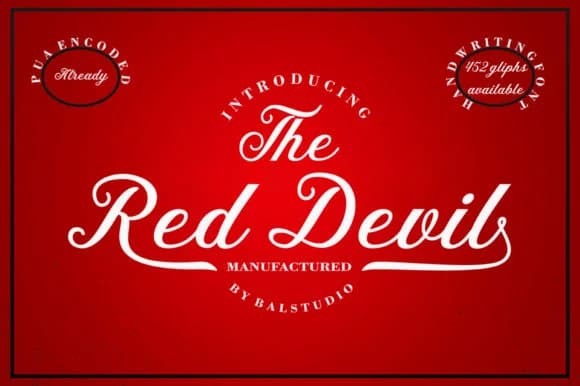
1 / 9About The Red Devil Font
Imagine you're designing labels for a craft cocktail brand that wants genuine personality without sacrificing refinement. The Red Devil Font by Bal Studio is a monoline script built for exactly this purpose. Its playful character has enough mischief to catch attention, but the clean letterforms keep everything grounded in elegance. The overall effect feels refined yet spirited, sophisticated yet with a wink.
Wine labels and upscale cocktail packaging are natural homes for this typeface when your brand needs character without slipping into cartoonishness. It works equally well on boutique gift boxes, speakeasy-inspired menus, event invitations with genuine personality, and independent coffee shop signage. The monoline structure means consistent letterforms and strong readability, whether you're scaling it large for posters and dramatic headlines or sizing it down for intricate package details and small-format designs. There's a versatility here that lets you use it across a brand system without it feeling out of place.
- Elegant, Flowing, The Red Devil
The Red Devil Font is a script font that shines as a display or heading face. Pair it with a clean sans-serif or serif font for body text β the contrast creates a clear hierarchy while the two styles stay balanced and easy to read.
The Red Devil Font
by Bal Studio